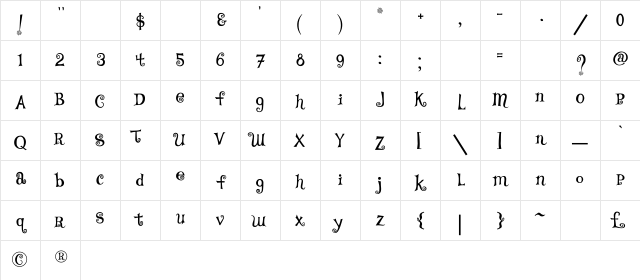
TS Curly Regular Free Font
TS Curly Regular
Designer: Supercarguy
Design Context for TS Curly
TS Curly is a composed and adaptable typeface that performs quietly and consistently across a wide range of design contexts.
Pro Tip: Use TS Curly in both headline and body roles to test its range before committing to a single application.